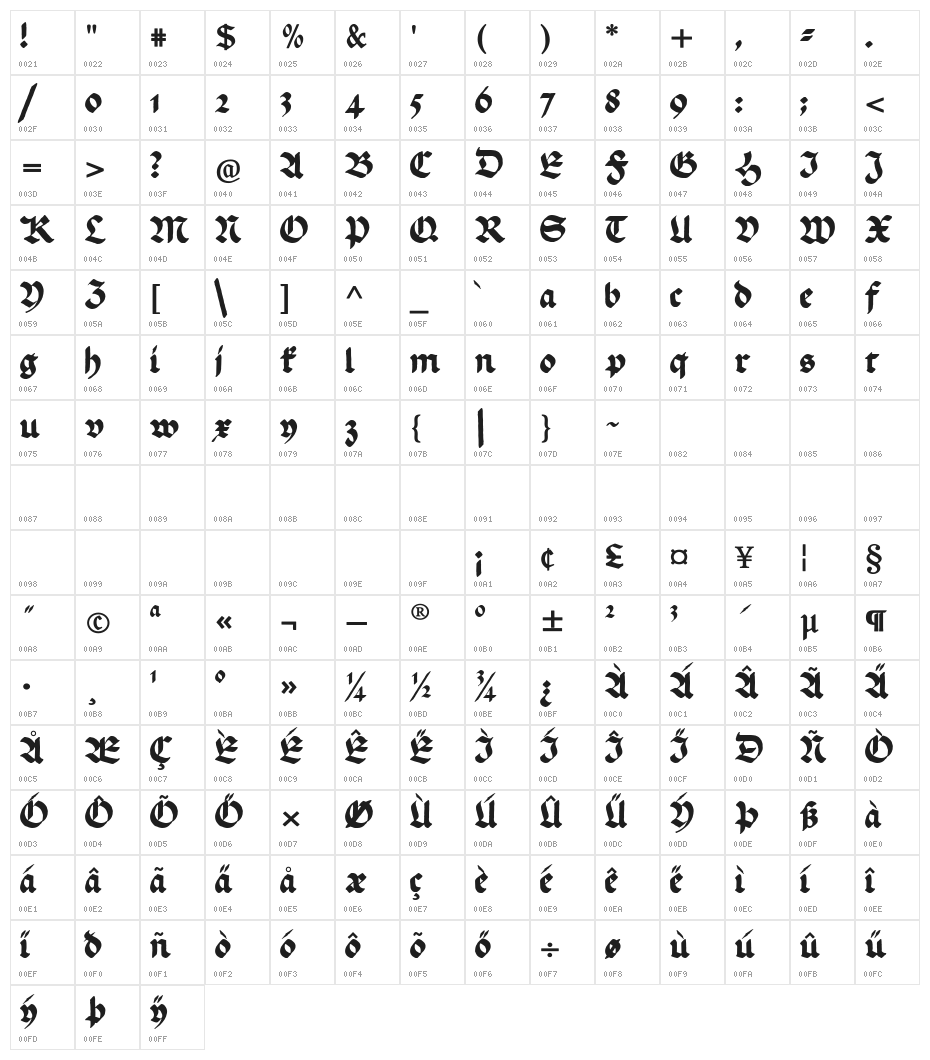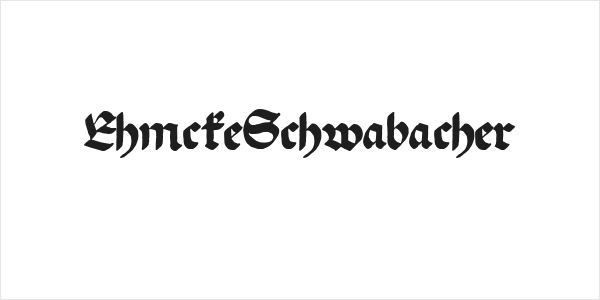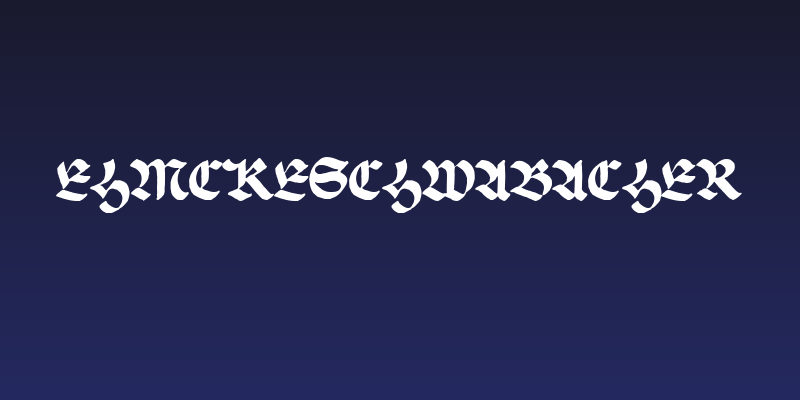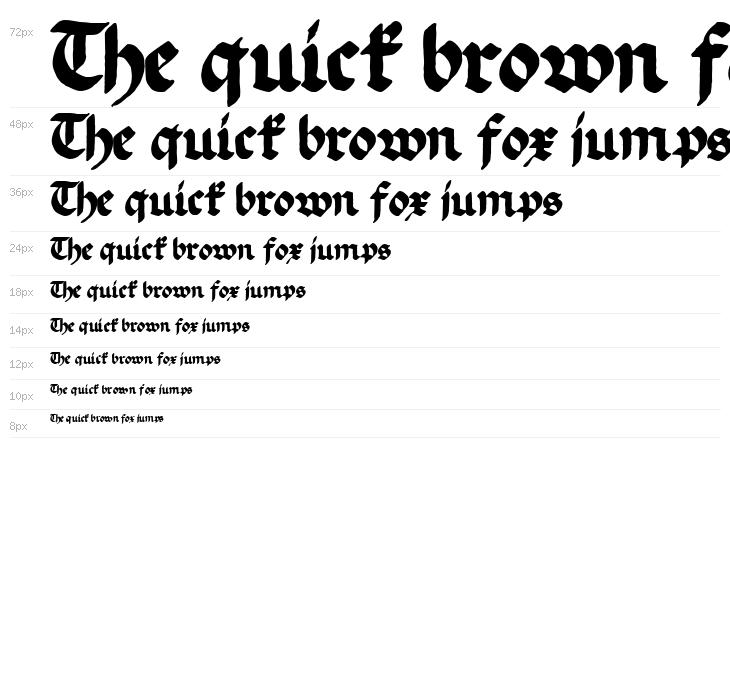
EhmckeSchwabacher Font
EhmckeSchwabacher Description
This font exhibits a traditional blackletter style, characterized by its intricate and angular letterforms. The strokes are bold and pronounced, with sharp edges and a distinct medieval aesthetic. The uppercase letters are ornate, featuring elaborate flourishes, while the lowercase letters maintain a consistent thickness and style. The numerals are similarly styled, with a strong presence and clear readability. Special characters are designed to complement the overall gothic appearance, making this font suitable for projects that require a historical or dramatic flair.
| Use Case | Headlines, Logos, Decorative text |
| Proposed Projects | Ideal for historical documents, certificates, book covers, posters, and branding that seeks a gothic or medieval theme. |